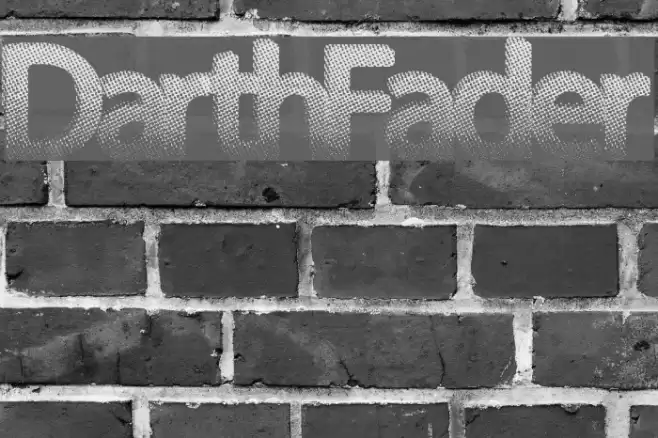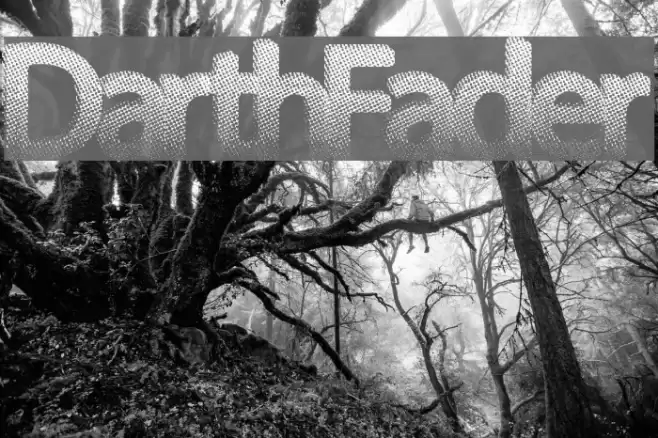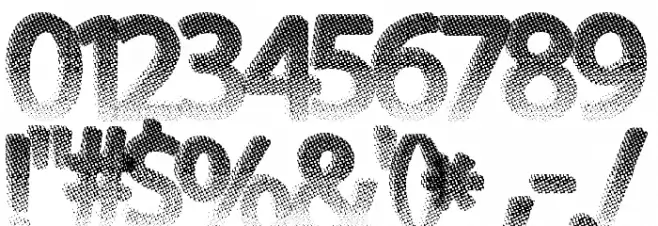
DarthFader Font
DarthFader Description
This font features a unique halftone pattern that creates a dynamic and textured appearance. The bold, sans-serif letters are filled with a gradient of dots, giving them a three-dimensional effect. The uppercase and lowercase letters maintain a consistent style, with rounded edges and a modern aesthetic. The numbers and special characters follow the same design, ensuring uniformity across all glyphs. This font's distinctive look makes it ideal for eye-catching designs that require a bold statement.
A bold, halftone-patterned sans-serif font with a modern, textured appearance from Uncategorized fonts.
- Proposed Projects: Ideal for posters, album covers, branding, and any project requiring a bold, modern look.